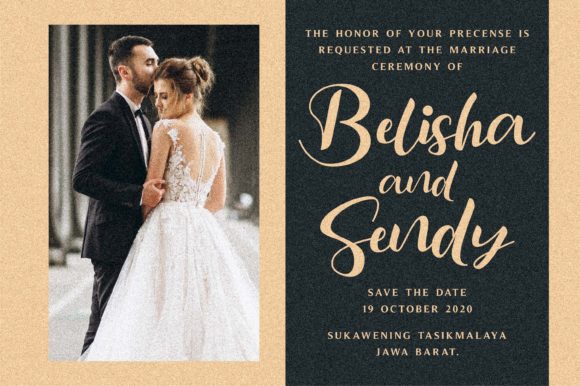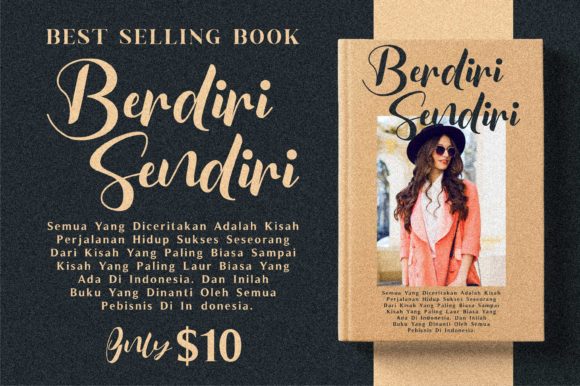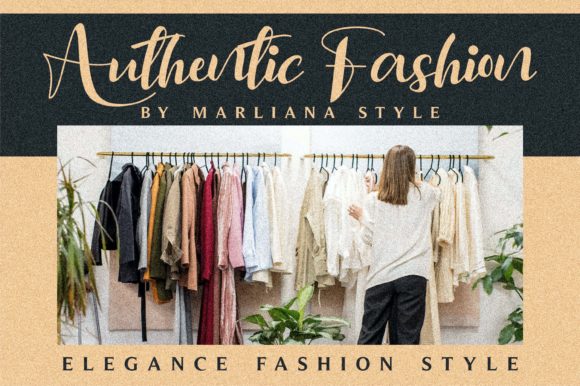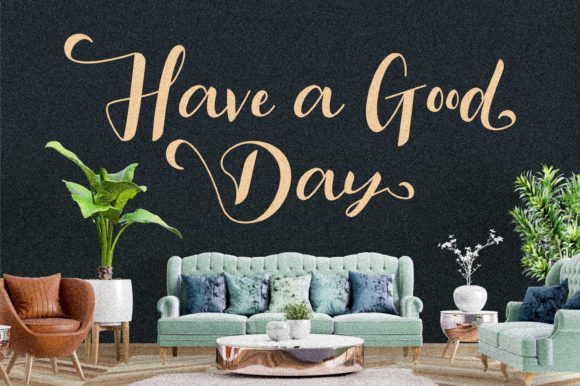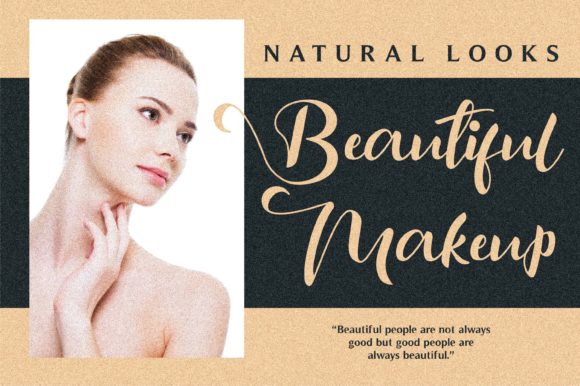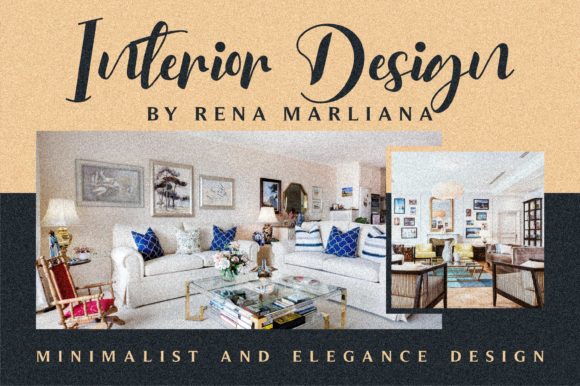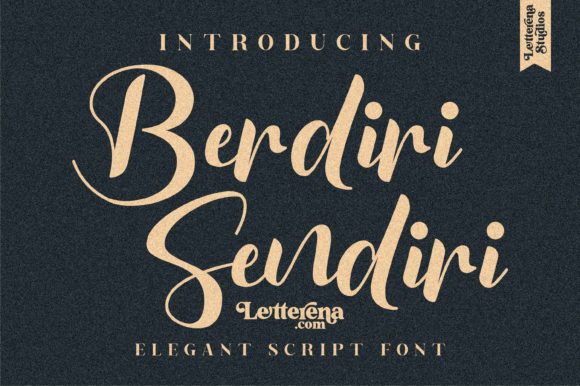
Introducing Berdiri Sendiri Font: Elevate Your Designs with Elegance and Flair
In the world of design, fonts play a crucial role in conveying the message and aesthetic of a project. Whether you’re a professional designer, a crafty DIY enthusiast, or a business owner looking to brand your venture, finding the right font can be a game-changer. This is where Berdiri Sendiri Font comes into play – an elegant and flowing handwritten font designed to make your designs stand out from the crowd.
What Makes Berdiri Sendiri Font Special?
Berdiri Sendiri Font is not just any ordinary font. Its unique, elegant, and flowing script is perfect for a variety of design projects, ranging from branding and advertising to packaging and digital media. The font’s design is characterized by its smooth lines, beautiful swashes, and a touch of sophistication that can elevate any text into a piece of art.
One of the standout features of Berdiri Sendiri Font is its PUA (Private Use Area) encoding. This means that the font includes a wide range of glyphs and swashes that are easily accessible. PUA encoding allows designers to access these additional characters with ease, providing more flexibility and creativity in their designs. Whether you want to add a personal touch to your project or create a unique brand identity, Berdiri Sendiri Font’s PUA encoding makes it incredibly simple.
Berdiri Sendiri Font is a versatile tool that caters to the needs of both professional designers and hobbyists. For designers, it offers a sophisticated and elegant solution for clients looking for something unique. For crafters, it provides an opportunity to add a professional touch to handmade products, such as personalized gifts, invitations, and DIY crafts.
Applications of Berdiri Sendiri Font
The applications of Berdiri Sendiri Font are vast and varied. Here are a few ideas to get you started:
- Branding and Logo Design: Create a memorable brand identity with a custom logo that stands out.
- Digital Marketing Materials: Use the font in brochures, flyers, and social media graphics to add a touch of elegance.
- Packaging Design: Make your product packaging more appealing and distinctive.
- DIY Projects: Add a professional touch to your handmade crafts, such as personalized journals, wedding invitations, and more.
Tips for Using Berdiri Sendiri Font
To make the most out of Berdiri Sendiri Font, here are a few tips:
- Pair it with Other Fonts: Combine Berdiri Sendiri Font with complementary fonts for contrast and visual interest.
- Experiment with Swashes: Use the font’s swashes to add flair to your designs and make them more dynamic.
- Adjust Size and Color: Play around with different sizes and colors to find the perfect fit for your project.
Berdiri Sendiri Font is more than just a font – it’s a design tool that can transform your projects with its elegance and flair. Whether you’re looking to create stunning branding, captivating marketing materials, or unique DIY crafts, this font is sure to exceed your expectations. With its PUA encoding and wide range of glyphs and swashes, Berdiri Sendiri Font offers endless possibilities for creativity and expression.